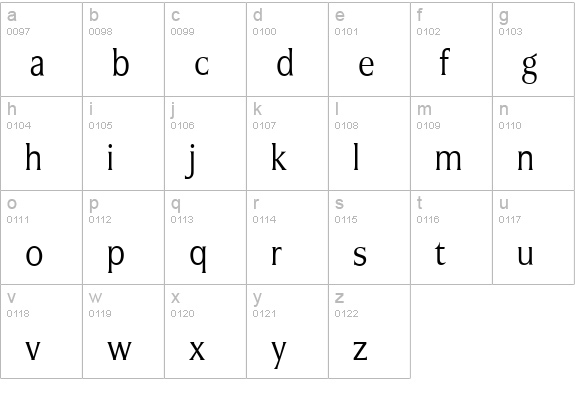
SilveradoLightCondensed Font Details
SilveradoLightCondensed is a visually stunning font that effortlessly captivates with its modern and sophisticated design. With its sleek and slender letterforms, this typeface exudes elegance and refinement, making it the perfect choice for projects that require a touch of class. The SilveradoLightCondensed font offers a unique blend of sharp angles and smooth curves, creating a harmonious balance that commands attention. Its condensed nature allows for efficient use of space, making it ideal for headlines, titles, and other prominent display purposes. The versatility of SilveradoLightCondensed knows no bounds, as it seamlessly adapts to various design styles and themes. Whether you're creating a minimalist website, a sleek corporate presentation, or a chic fashion magazine, this font will elevate your project to new heights. With its generous x-height and legible letterforms, SilveradoLightCondensed ensures optimal readability without compromising on style. Each character is meticulously crafted, resulting in a harmonious and cohesive typeface that effortlessly enhances any design. What makes SilveradoLightCondensed even more appealing is that it is freely available to download at FontsMarket.com. This means that you can access this exceptional font without any cost, allowing you to elevate your designs without breaking the bank. So, whether you're a professional designer looking for a versatile font or an enthusiast searching for a high-quality typeface, SilveradoLightCondensed is the perfect choice. Download it for free at FontsMarket.com and unlock a world of endless design possibilities.